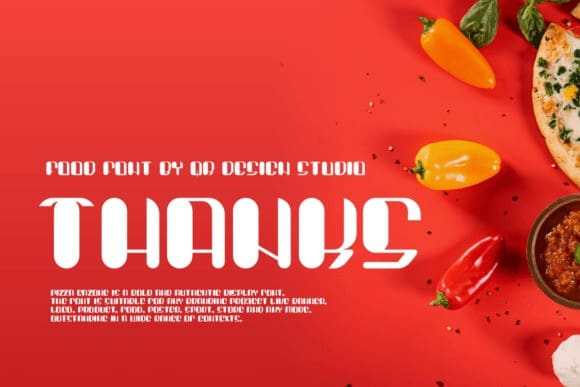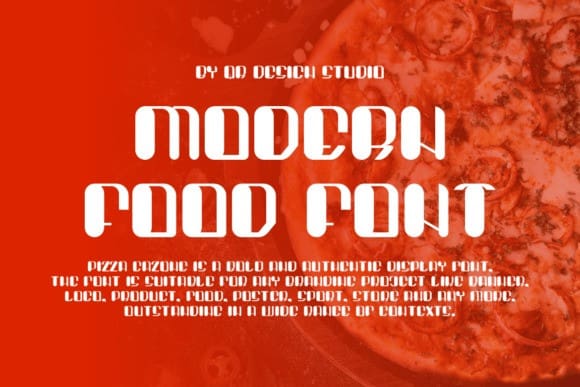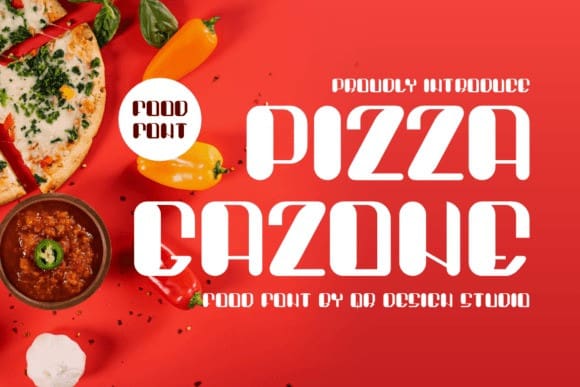
Pizza Gazone Font
Pizza Gazone Font is a bold and assertive sans serif font. No matter the topic, this font will be an incredible asset to your fonts’ library, as it has the potential to elevate any creation.